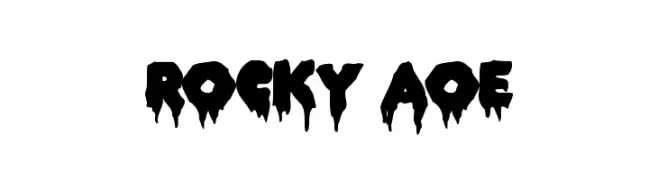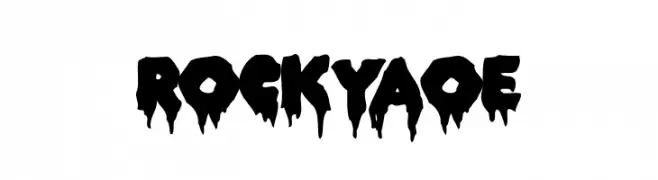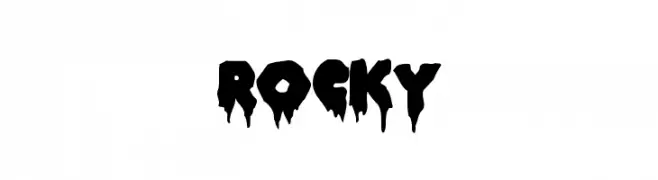
A bold, expressive handwritten font with dynamic strokes and artistic flair.
A bold, distressed font with a rugged, textured appearance.
A bold, textured font with an edgy, hand-drawn style.
A playful, hand-drawn font with a textured, rock-like appearance.
A bold, dripping font with a horror-themed, melting appearance.
A bold, dripping font with a horror-themed style.
A bold, textured font with a rugged, rocky appearance.
A dynamic, fluid handwritten font with smooth, flowing strokes.
A bold, brush-style font with dynamic and expressive strokes.